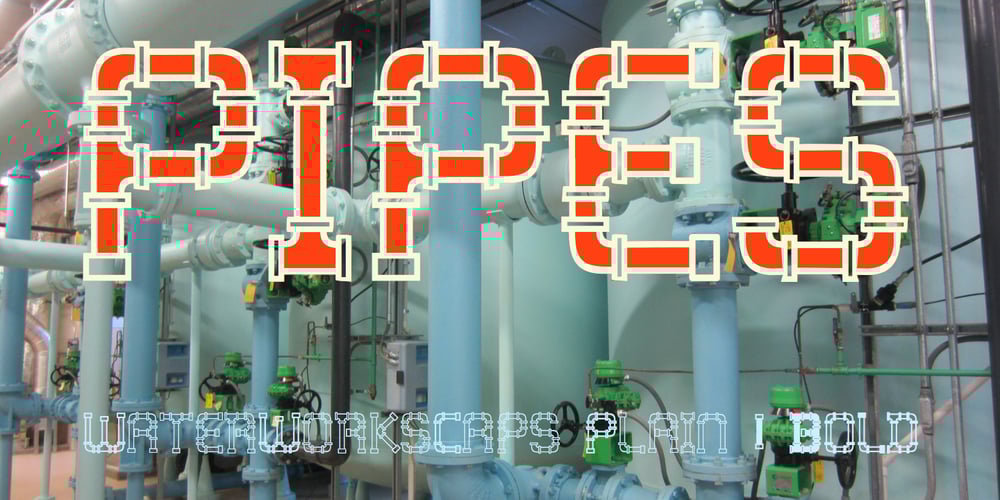
WaterWorksCaps Font Family was designed by Robert Schenk and published by Ingrimayne Type. WaterWorksCaps contains 2 styles and family package options. In WaterWorks the letters are formed from pipes. Its origins were in a specialized font for constructing mazes.